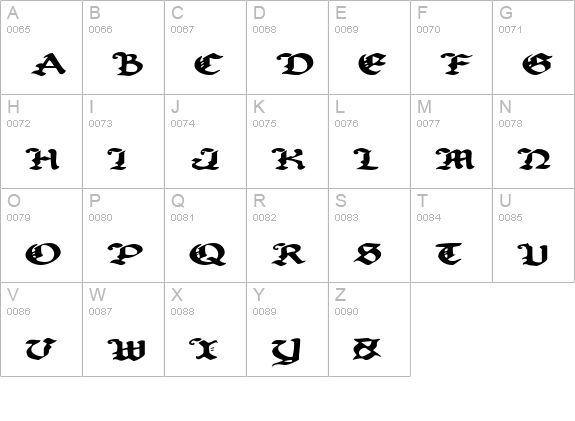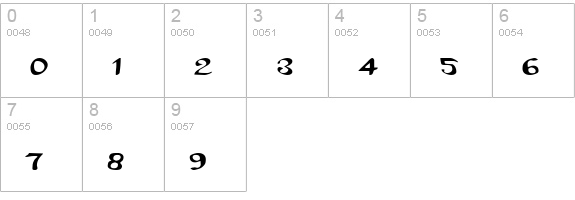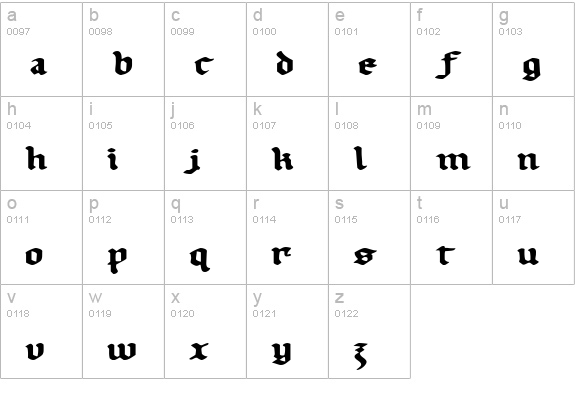
Uberhölme Expanded is a distinctive, extended-width variant in the Uberhölme typeface family \xE2\x80\x94 well suited to design and typography projects.
Introducing Uberhölme Expanded, a stunning display font that will elevate your designs to new heights. With its bold and captivating presence, this font is perfect for headlines, titles, logos, and any project that demands attention. Uberhölme Expanded boasts an expanded version of its original design, allowing for even more impact and allure. Its carefully crafted letterforms exude confidence and power, making it the ideal choice for projects that require a touch of authority. But what makes Uberhölme Expanded truly special is that it is not only visually impressive, but also freely available for download at FontsMarket.com. Yes, you heard that right! This font is completely free, allowing you to enhance your designs without breaking the bank. Whether you're a professional designer or a hobbyist, Uberhölme Expanded is a must-have in your font collection. Its versatility and elegance make it suitable for a wide range of design projects, from branding and packaging to digital and print media. So why wait? Elevate your designs with Uberhölme Expanded today. Download it for free at FontsMarket.com and unlock a world of possibilities for your creative endeavors.